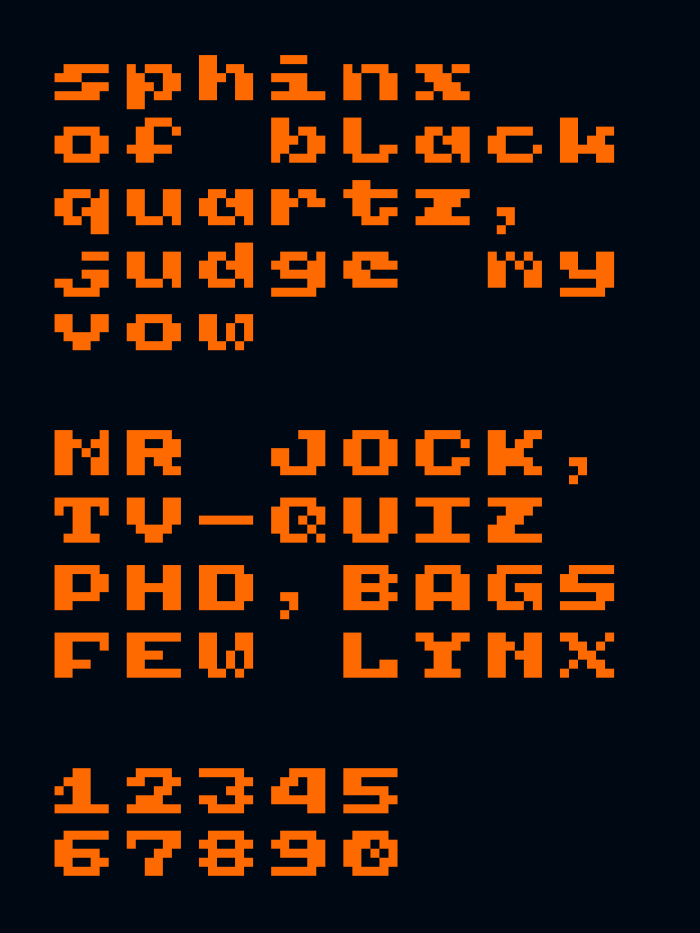
6x6 characters designed for use as 8x8 sprites with 1 pixel of padding in each direction, to allow for more compact text containers. 4 pixel x-height, 1 pixel each for ascenders and descenders.